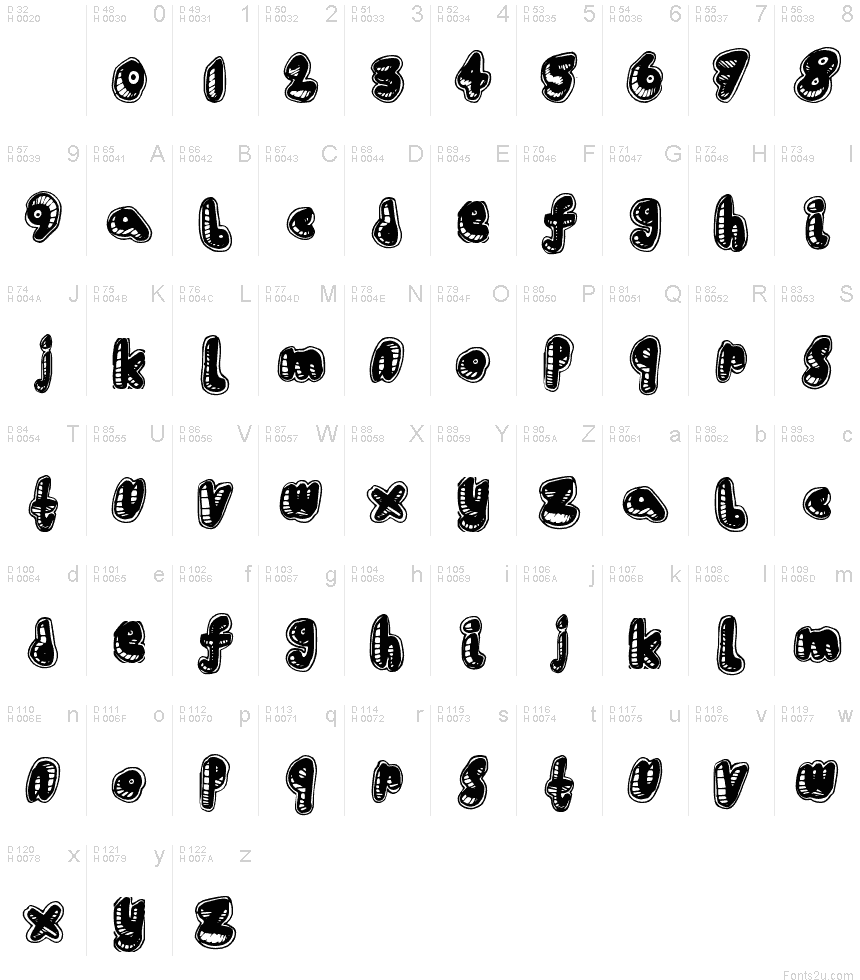
House Rave by Xerographer Fonts is a free cartoon display font with swollen, uneven letters and a lively hand-drawn outline. White cut-ins and striped highlights cross the dark forms like ink doodles. The shapes bounce and buckle from letter to letter.
It can turn children's entertainment and underground music posters into rambunctious graphics, since its comic bulk suits both playful and noisy subjects. Food packaging and merchandise also benefit from the lettering's sticker-like finish. Its audience is designers working with youth culture, arcade events, comics, or street-inspired brands.
House Rave from Xerographer Fonts is a free cartoon display font.